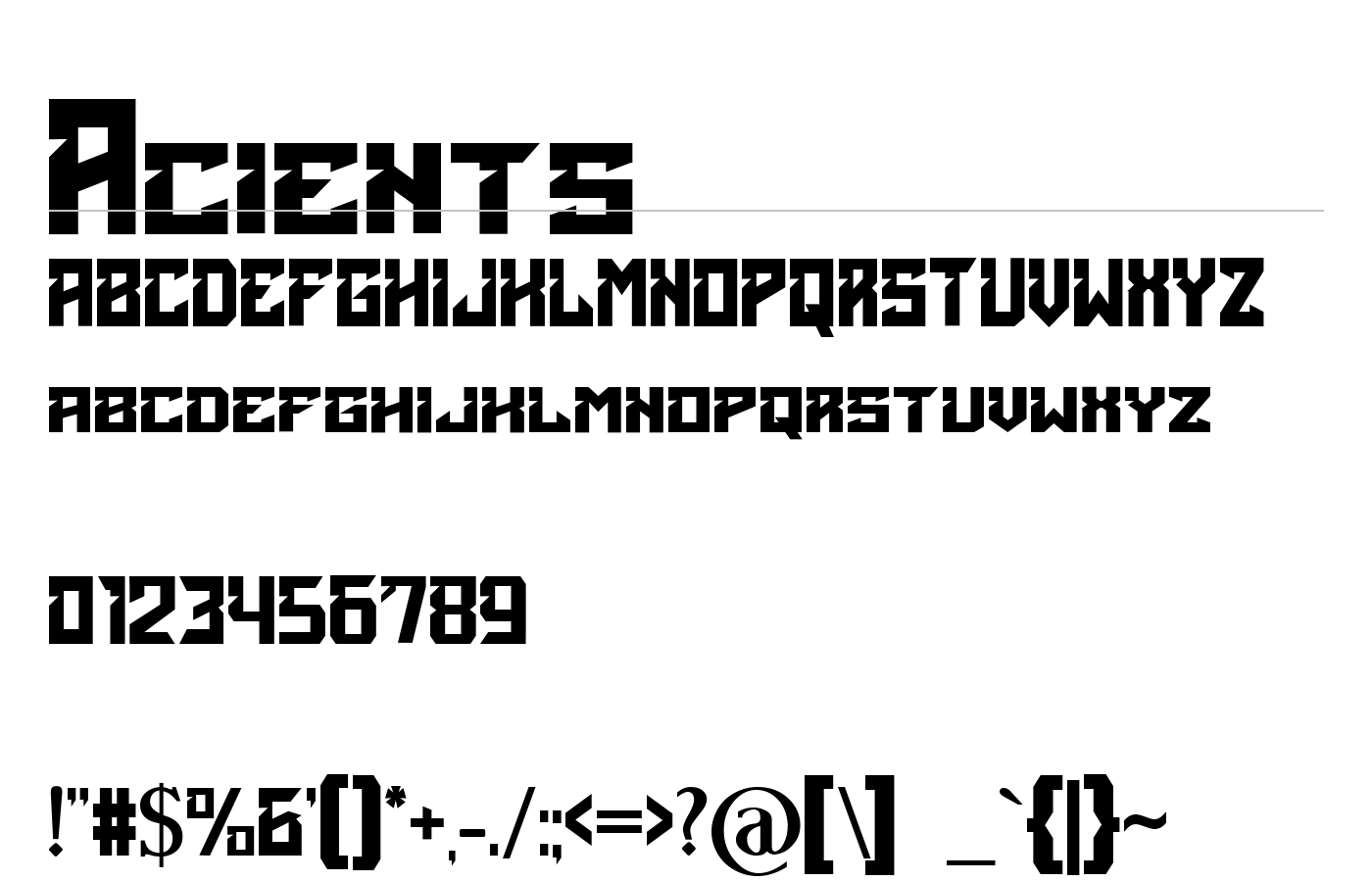
Acients is a bold, geometric sans serif font featuring sharp, angular edges and a condensed, blocky structure that gives it a futuristic, industrial feel. Its unique letterforms and high stroke contrast make it ideal for striking headlines, logos, and display uses where a strong, modern impact is desired. This font works best in creative branding and edgy designs that demand attention with a distinctive, tech-inspired personality.
Acients Font
About Acients Font